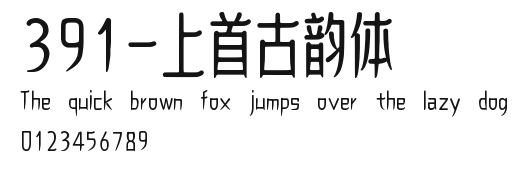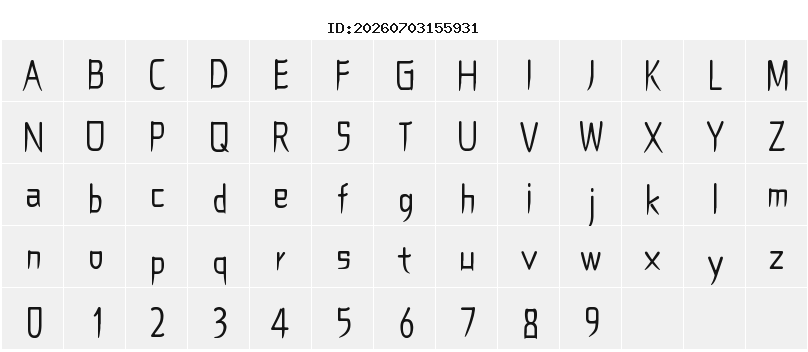
• Font Name: 391-上首古韵体
• Font ID: 391-SSGuYunTi:Version 4.00
• Full Font Name: 391-上首古韵体
• Version: Version 4.00;January 8, 2025;FontCreator 13.0.0.2613 32-bit
• PostScript Name: 391SSGuYunTi
• Character Count: 7566
• Manufacturer: 上首造字
About 391-上首古韵体.ttf
391-上首古韵体.ttf is a modern, elegant sans-serif font designed for ultimate readability and visual harmony. Perfect for branding, headlines, web design, and print materials.